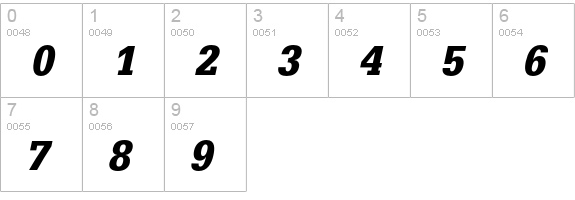
Glypha 75 Black Oblique Font Details
Glypha 75 Black Oblique is a maximum-weight, dramatic, italic variant in the Glypha typeface family \xE2\x80\x94 well suited to maximum-impact headlines, posters, and packaging.
Glypha 75 Black Oblique font is a striking and bold typeface that exudes confidence and modernity. Its sleek design and slanted appearance make it perfect for adding a touch of sophistication to any project. The sharp angles and clean lines of the characters give this font a strong presence, making it ideal for headlines, titles, and branding materials. What sets Glypha 75 Black Oblique font apart is not just its impeccable design, but also the fact that it is available for free download at FontsMarket.com. This means that you can easily access this stunning font and use it in your designs without any cost. Whether you're working on a professional project or a personal creative endeavor, Glypha 75 Black Oblique font is a versatile and stylish option that will elevate your work to new heights. Download it today and see the impact it can make on your designs!